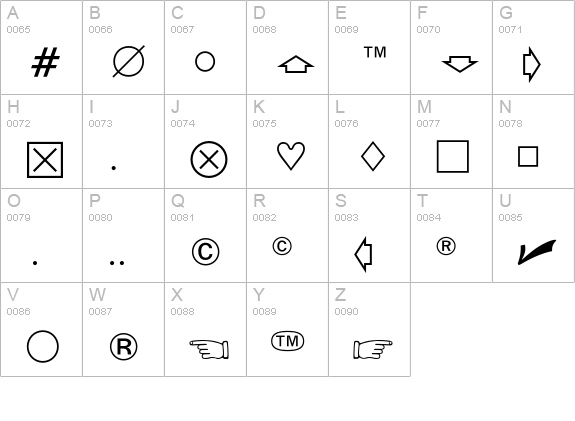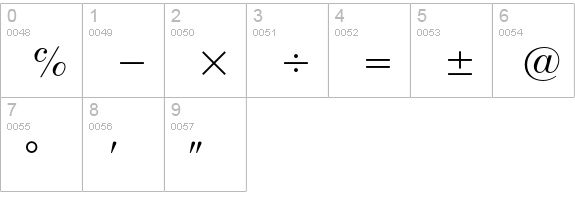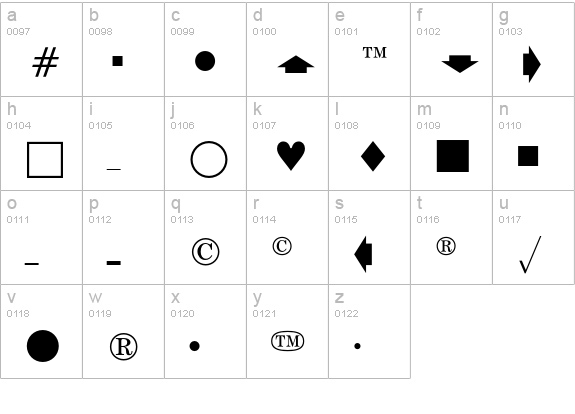
Universal News w. Commercial Pi 97 Font Details
Introducing Universal News, the font that effortlessly merges timeless elegance with modern sophistication. With its sleek and refined curves, this Commercial Pi 97 font captivates attention and adds a touch of class to any text it graces. Perfectly suited for headlines, titles, and logos, Universal News commands attention and exudes professionalism. But that's not all - the best part is that Universal News is available for free! That's right, this remarkable font can be freely downloaded at FontsMarket.com, making it accessible to all designers and typography enthusiasts. Whether you're working on a personal project or a professional endeavor, Universal News allows you to elevate your designs without breaking the bank. With its versatility and captivating presence, Universal News is a go-to choice for various industries, including journalism, advertising, and publishing. Its clean lines and precise letterforms ensure legibility, while the commercial Pi 97 design adds a unique flair that sets it apart from the crowd. This font's wide range of glyphs and characters provides endless possibilities, allowing you to create eye-catching compositions and communicate your message effectively. From bold headlines to delicate captions, Universal News effortlessly adapts to various design contexts, ensuring your content stands out in all its glory. So why wait? Take advantage of this incredible opportunity to enhance your projects with Universal News' elegant and professional aesthetic. Download this captivating font for free at FontsMarket.com and unlock a world of possibilities for your design endeavors.